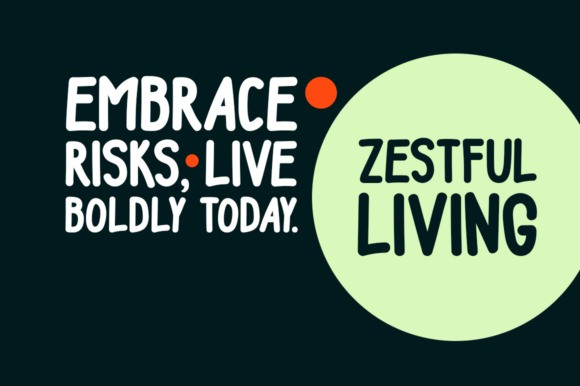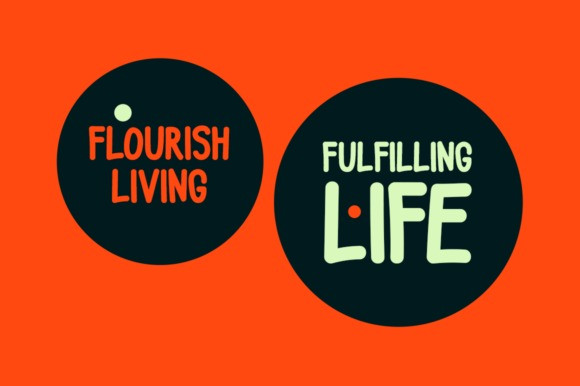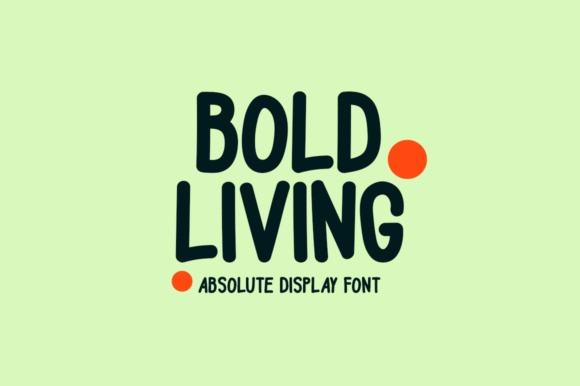
Bold Living Font
Bold Living Font is a remarkable display font that brings an unmatched style that seamlessly complements a vast range of projects, amplifying their distinctiveness and leaving a lasting impression on your creative works.